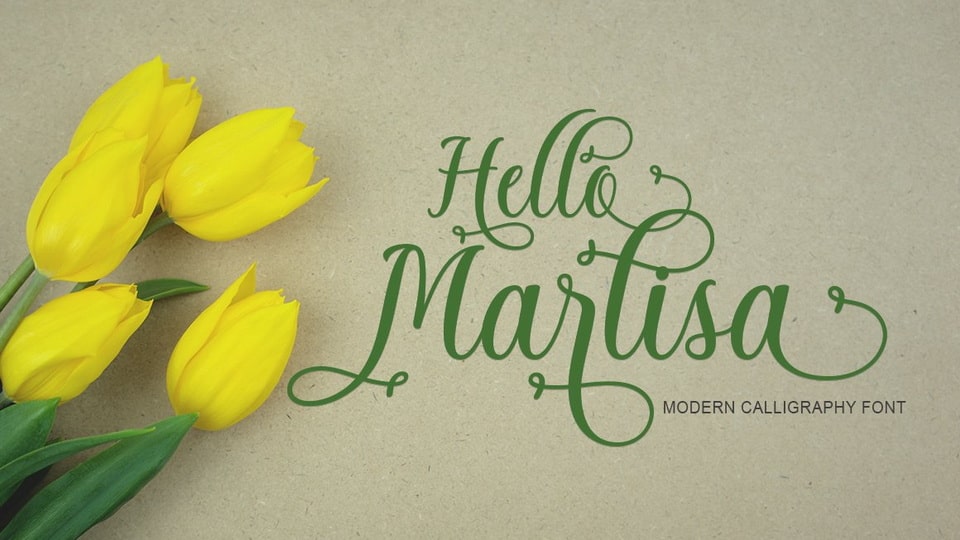
Jan 31, 2025Script & HandwrittenHello Marlisa Font Hello Marlisa is a beautiful light handwritten font with a unique feel and a stunning impact. It will add a luxury spark to any design project that you wish to create! Font DetailsDesigned by: Stripes StudioWebsiteLicense: Free for personal use Download Hello Marlisa FontFile size: 139.24 KBCreated: February 16, 2025Updated: February 16, 2025 Download Explore similar fonts Hello Cherlie Font Hello Honey Font Hello Christmas Font Hello Magic Font Hello Yasmin Font Hello Fyndina Font # Calligraphy# Hand-drawn# Handwriting# Holiday# Pretty# Wedding More fonts by Stripes StudioLove Style FontHeliconia FontSmoothline Script FontHugbirds Brush FontMadelis Script FontWellington FontMurchison FontSyarlina Script Font